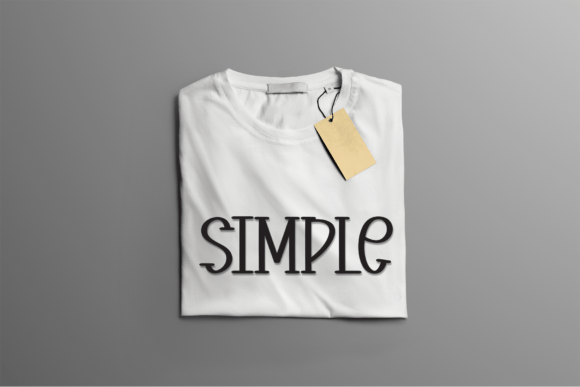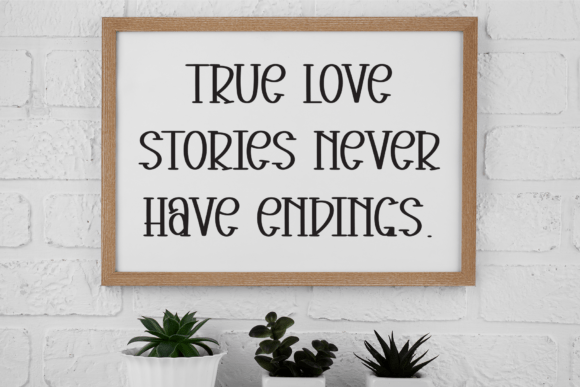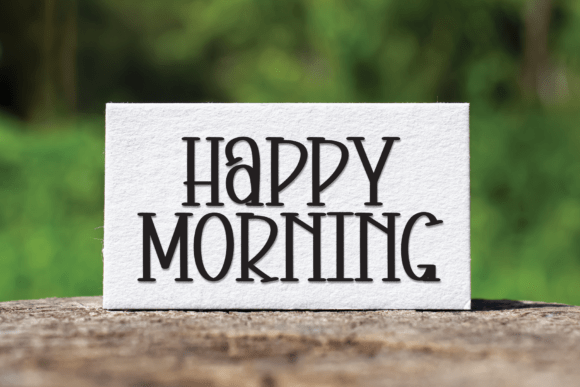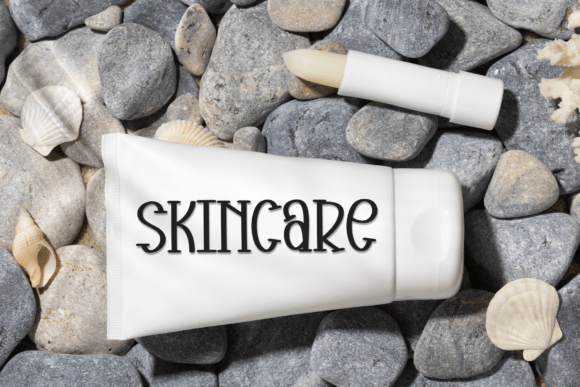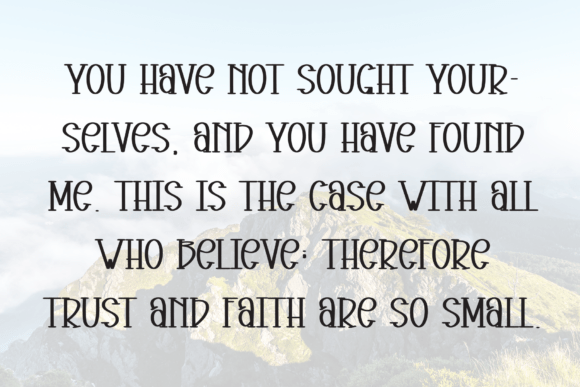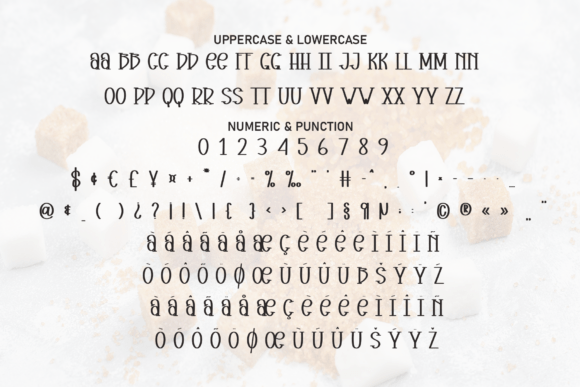
Baby Sugar Font: The Perfect Blend of Simplicity and Friendliness
In the world of typography, fonts play a crucial role in conveying the tone and personality of a brand or design. For designers and crafters, finding the right font can make all the difference in creating a visually appealing and effective design. One such font that has gained popularity for its unique blend of simplicity and friendliness is the Baby Sugar Font. In this article, we’ll explore the features, benefits, and uses of this lovely font.
What is Baby Sugar Font?
Baby Sugar Font is a casual and neat display font that combines the best of modern handwritten typography with a polished finish. Its clean lines, balanced letterforms, and subtle rounded edges give it a friendly and approachable vibe, making it perfect for a wide range of design applications. Whether you’re working on branding, headlines, packaging, or digital content, Baby Sugar Font is sure to add a warm and inviting touch to your design.
Key Features of Baby Sugar Font
- Clean Lines and Balanced Letterforms: Baby Sugar Font features clean lines and balanced letterforms that give it a crisp and modern look.
- Subtle Rounded Edges: The subtle rounded edges of the font add a touch of friendliness and approachability, making it perfect for designs that require a warm and inviting tone.
- Versatile Style: Baby Sugar Font is a versatile font that can be used for a wide range of design applications, from branding and headlines to packaging and digital content.
- Polished Finish: The font has a polished finish that gives it a professional and high-end look, making it perfect for designs that require a touch of sophistication.
Benefits of Using Baby Sugar Font
So, why should designers and crafters choose Baby Sugar Font for their designs? Here are some benefits of using this lovely font:
- Easy to Read: The clean lines and balanced letterforms of Baby Sugar Font make it easy to read, even at small sizes.
- Versatile: The font’s versatile style makes it perfect for a wide range of design applications, from digital content to print materials.
- Unique and Memorable: Baby Sugar Font has a unique and memorable look that will help your design stand out from the crowd.
- Time-Saving: With Baby Sugar Font, you can create professional-looking designs in no time, saving you time and effort.
Use Cases for Baby Sugar Font
Baby Sugar Font is a versatile font that can be used for a wide range of design applications. Here are some use cases for this lovely font:
- Branding: Use Baby Sugar Font to create a unique and memorable brand identity that reflects your brand’s personality and values.
- Headlines: The font’s clean lines and balanced letterforms make it perfect for headlines, titles, and headings.
- Packaging: Baby Sugar Font is a great choice for packaging design, adding a touch of warmth and friendliness to your product packaging.
- Digital Content: The font is also perfect for digital content, including social media graphics, blog posts, and website headers.
In conclusion, Baby Sugar Font is a lovely font that combines simplicity with a friendly and approachable vibe. Its clean lines, balanced letterforms, and subtle rounded edges make it perfect for a wide range of design applications, from branding and headlines to packaging and digital content. With its versatile style and polished finish, Baby Sugar Font is sure to add a warm and inviting touch to any design. Whether you’re a designer or crafter, this font is definitely worth checking out.